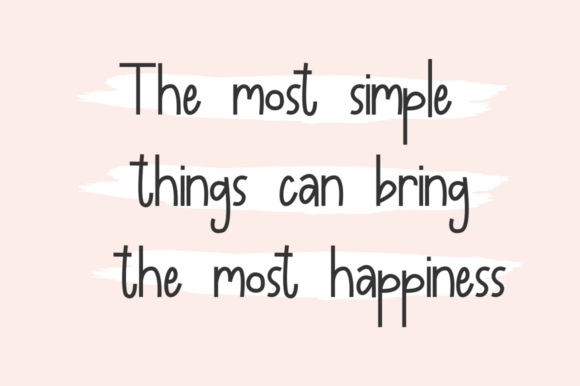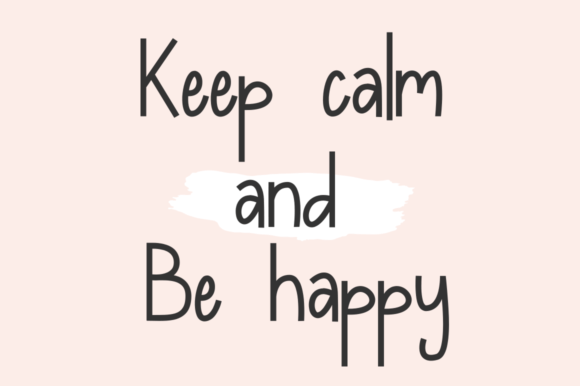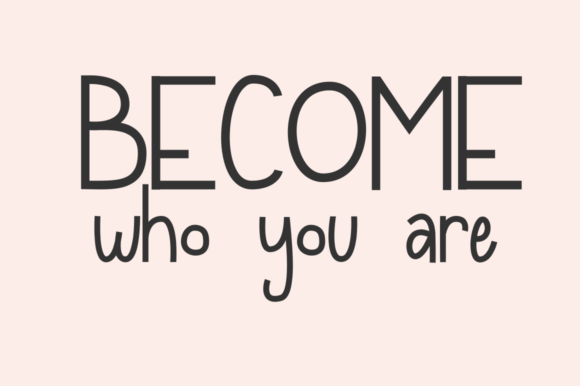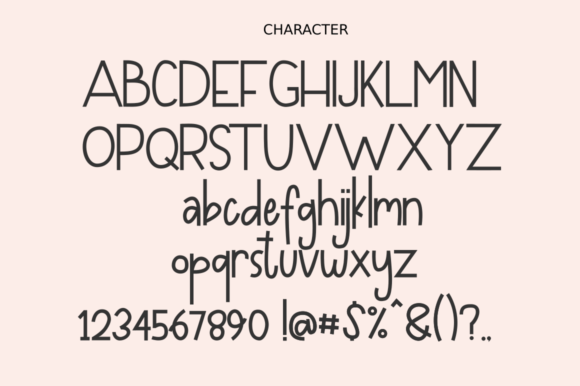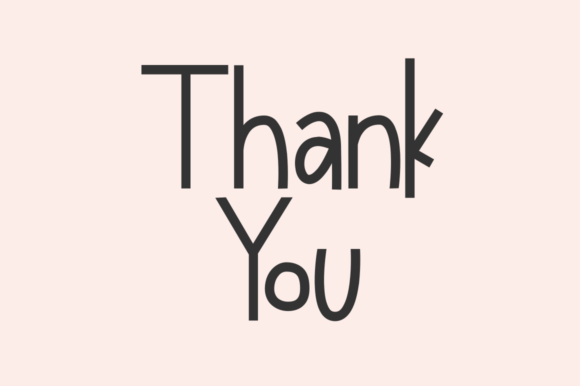
Bumblle Font: The Playful and Whimsical Typeface That Will Capture Your Heart
Are you tired of using the same old fonts in your designs? Look no further than Bumblle, a playful and whimsical font that is sure to add a touch of charm to any project. With its unique quirks and adorable personality, Bumblle is the perfect choice for designers and crafters looking to add some fun and personality to their work.
The Story Behind Bumblle
Bumblle is a font that was created with the intention of bringing a smile to people’s faces. Its designer, [Designer’s Name], wanted to create a typeface that was not only visually appealing but also conveyed a sense of playfulness and whimsy. And with Bumblle, they have succeeded in doing just that.
The font’s design is inspired by the idea of imperfections and quirks being what make things truly special. Each letter in Bumblle has its own unique characteristics, from the slightly wonky lines to the playful flourishes. The result is a font that feels approachable, friendly, and utterly charming.
What Makes Bumblle So Special?
So, what sets Bumblle apart from other fonts out there? Here are just a few things that make it so special:
- Unique Quirks: As mentioned earlier, Bumblle has a number of unique quirks that set it apart from other fonts. From the slightly irregular line widths to the playful letterforms, every aspect of Bumblle has been carefully crafted to create a sense of whimsy and playfulness.
- Adorable Charm: Bumblle has an undeniable charm that is hard to resist. Its playful personality shines through in every letter, making it the perfect choice for designers and crafters who want to add a touch of fun to their work.
- Versatility: Despite its playful nature, Bumblle is a surprisingly versatile font. It can be used for everything from titles and headings to body text and even quotes.
How to Use Bumblle in Your Designs
So, how can you use Bumblle in your designs? Here are a few ideas to get you started:
- Pair it with a bold font: Bumblle’s playful nature makes it the perfect pairing with a bold, sans-serif font. Try pairing it with a font like Arial Black or Impact for a striking contrast.
- Use it for titles and headings: Bumblle’s unique quirks make it perfect for titles and headings. Use it to add a touch of personality to your design and draw attention to important information.
- Add some color: Bumblle looks great in a variety of colors, so don’t be afraid to experiment. Try using a bright, bold color to really make your design pop.
Bumblle in the World of Crafting
Bumblle is not just limited to digital design – it’s also a great font for crafters. Whether you’re making signs, decorating cards, or creating DIY projects, Bumblle is the perfect choice. Its playful personality and whimsical feel make it a great fit for a wide range of crafting projects.
Here are a few ideas for using Bumblle in your crafting projects:
- Make a sign: Use Bumblle to create a fun and playful sign for your home or office. You could use it to label a shelf, create a welcome sign, or even make a funny quote.
- Decorate a card: Bumblle is a great font for decorating cards and gift tags. Use it to add a personal touch to your correspondence and make your gifts stand out.
- Create a DIY project: Bumblle is a great font for DIY projects like scrapbooking, journaling, and more. Use it to add a touch of personality to your project and make it truly unique.
| Author | alanstudio99 |
In conclusion, Bumblle is a playful and whimsical font that is sure to capture your heart. With its unique quirks and adorable charm, it’s the perfect choice for designers and crafters looking to add some fun and personality to their work. Whether you’re using it for digital design or crafting, Bumblle is a versatile font that is sure to bring a smile to people’s faces. So why not give it a try and see what kind of creative projects you can come up with?
Key Features of Bumblle Font:
- Playful and whimsical design
- Unique quirks and adorable charm
- Versatile and suitable for a wide range of projects
- Perfect for titles, headings, and body text
- Great for digital design and crafting projects